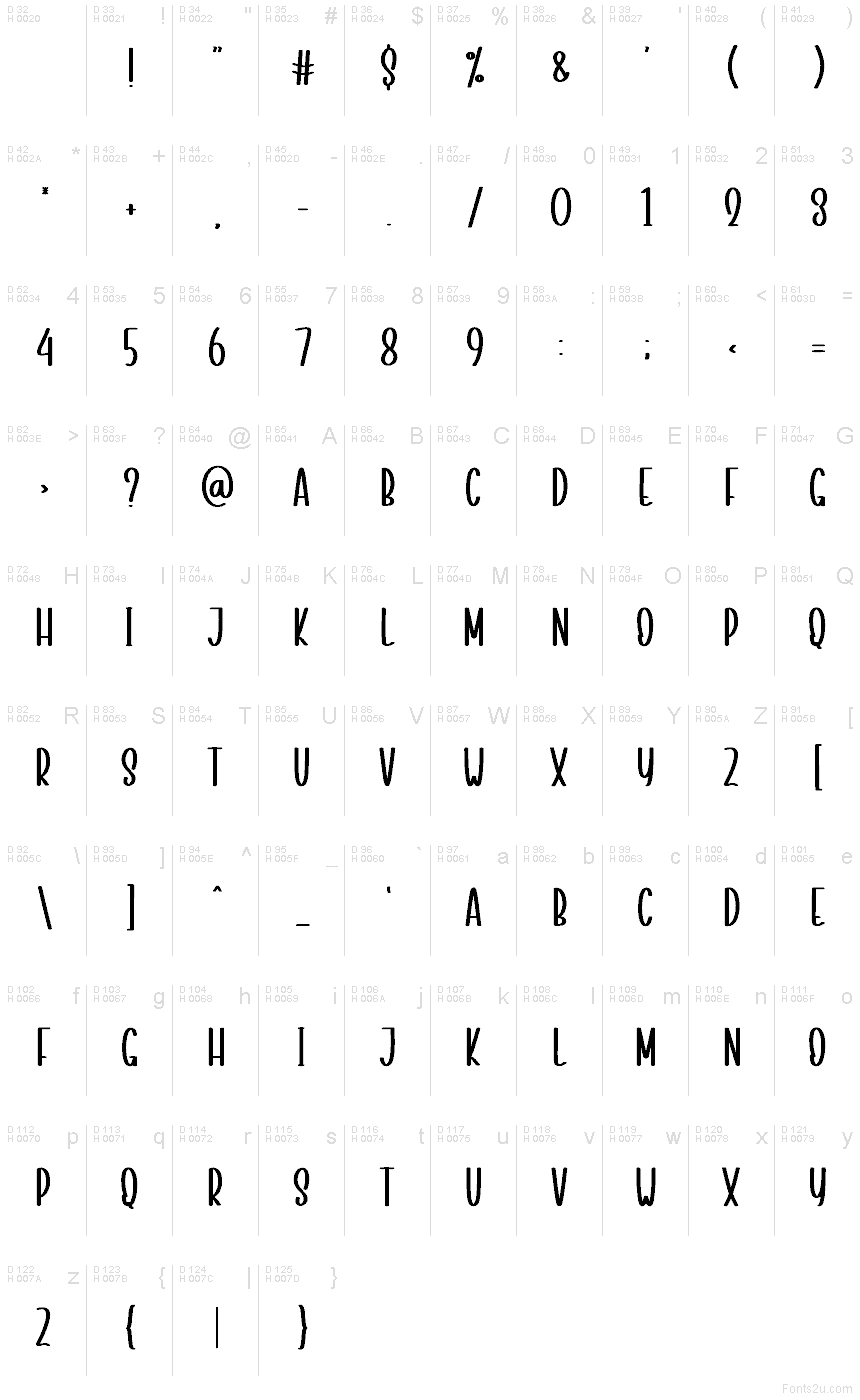
Magical Planner
Magical Planner font by Scratchones is a handwritten font with a casual and friendly tone that engages the audience through its whimsical appearance. The condensed modern letters give this typeface an overall non-serious laid-back feel as opposed to formality. The ability to capture attention makes Magical Planner one of the fonts that you can use for different, but mostly casual, projects.